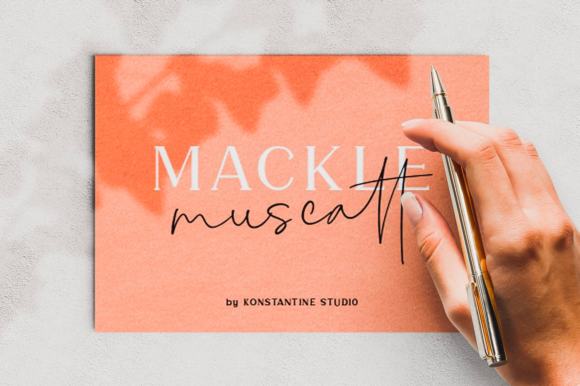
Behold, the Mackle Font Duo: Your Gateway to a Branded, Inviting Design Experience
Welcome to the world of Mackle Font, a meticulously crafted duo font that blends the elegance of serif with the charm of script. This captivating font family is designed to bring a touch of sophistication and approachability to your creative projects, giving them a branded yet warm and inviting feel. Embark on a typographic journey where your words dance with grace and personality.
Meet the Script: A Symphony of Elegance and Fluidity
The Mackle Script font exudes an aura of effortless elegance, its sweeping curves and delicate lines evoking a sense of timeless beauty. Each character flows into the next, creating a harmonious rhythm that draws the eye and captivates the imagination. Whether you're crafting wedding invitations, designing logos, or creating eye-catching social media posts, the Mackle Script font will add a touch of refinement and grace to your creations.
Step into the Serif: A Foundation of Strength and Stability
The Mackle Serif font, with its strong and dependable serifs, provides a solid foundation for your design. Its classic lines and timeless appeal bring a sense of authority and credibility to any project. Perfect for headlines, body text, and branding materials, the Mackle Serif font exudes professionalism and poise. Use it to create impactful marketing materials, elegant brochures, or compelling website designs that leave a lasting impression.
The Perfect Pair: Synergy and Versatility at Your Fingertips
Together, the Mackle Script and Serif fonts form a dynamic duo, complementing each other seamlessly to create a cohesive and visually appealing design aesthetic. Mix and match the fonts to achieve a variety of looks, from elegant and formal to playful and whimsical. Create stunning logos with the script font as your centerpiece and the serif font for added emphasis. Design eye-catching invitations with the script font dancing across the page and the serif font providing a solid foundation. The possibilities are endless, limited only by your imagination.
Elevate Your Designs with Mackle: A Font Family for Every Occasion
Whether you're a seasoned designer or just starting out, the Mackle Font Duo is your perfect companion. Its versatility and charm make it suitable for a wide range of projects, including branding, marketing, social media, and personal design endeavors. Add a touch of sophistication to your wedding invitations, create logos that stand out from the crowd, or design social media posts that captivate your audience. The Mackle Font Duo is your gateway to a world of creative possibilities.